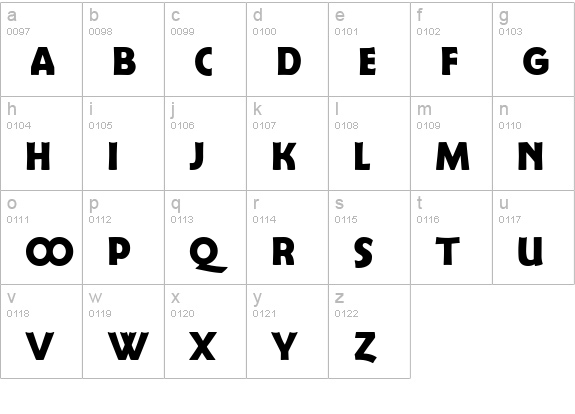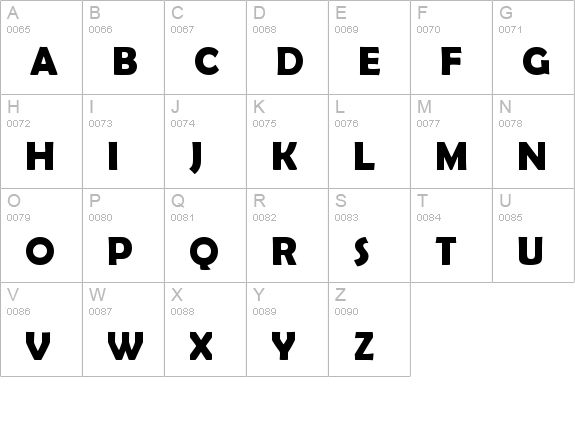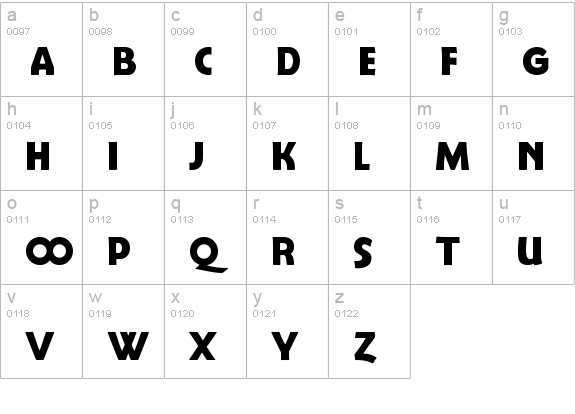
Berlinsans DemiExpert font exudes a sense of modern sophistication with its sleek, clean lines and bold appearance. This typeface strikes the perfect balance between professionalism and creativity, making it a versatile choice for a wide range of design projects. Whether you're working on branding materials, editorial layouts, or digital content, Berlinsans DemiExpert will elevate your work with its contemporary aesthetic. What sets Berlinsans DemiExpert apart is its exceptional legibility and distinctive personality. The strong, confident letterforms make a statement while maintaining readability, ensuring that your message comes across loud and clear. This font is ideal for headlines, subheadings, and other display purposes where impact is key. Best of all, Berlinsans DemiExpert is available for free download at FontsMarket.com. This means you can easily access this high-quality font without breaking the bank, making it a valuable addition to your design toolkit. Don't miss out on the opportunity to enhance your projects with the modern elegance of Berlinsans DemiExpert font. Download it today and let your creativity shine!